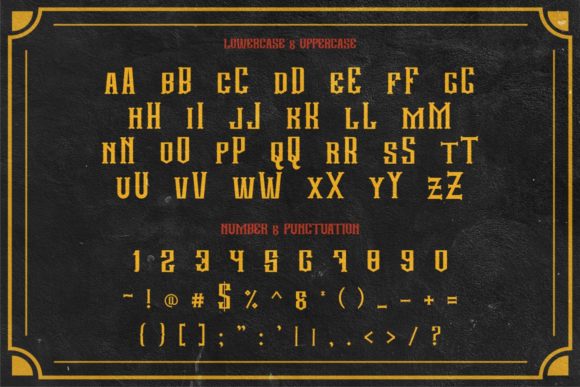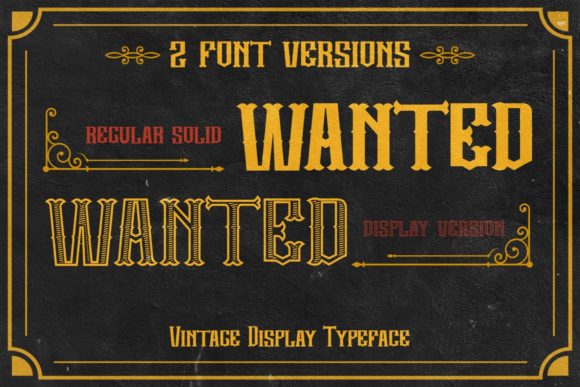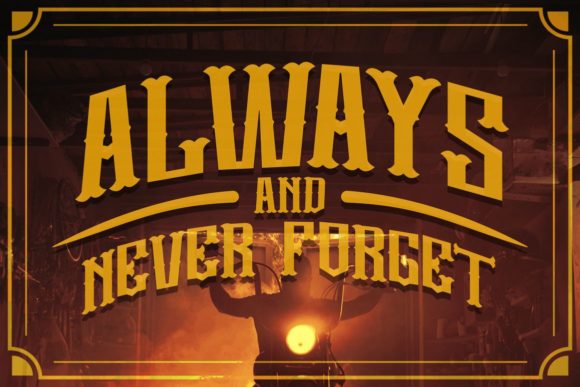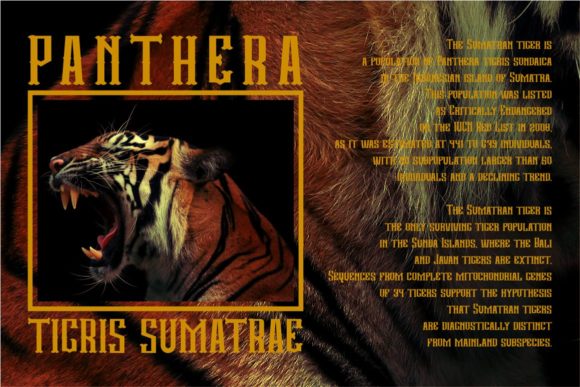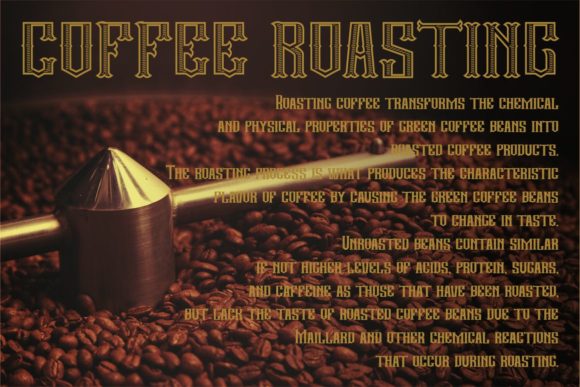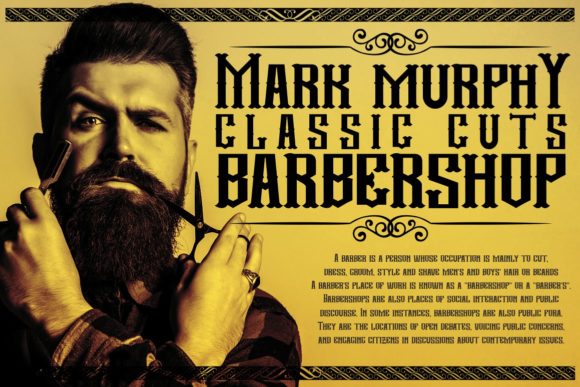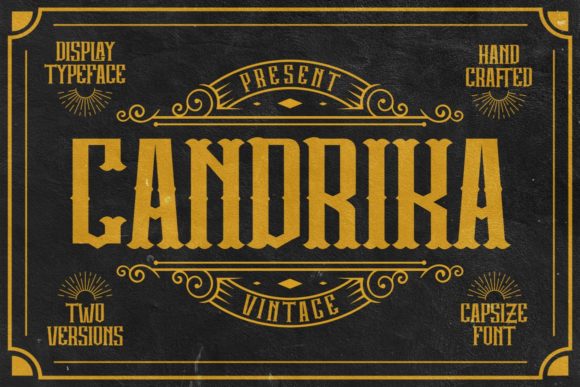
Candrika Font: Elevate Your Designs with a Cool, Bold, and Vintage Flair
Are you on the hunt for a font that adds a touch of nostalgia and sophistication to your designs? Look no further than Candrika, a stunning display font that’s perfect for creating eye-catching posters, flyers, and prints. With its bold, vintage-inspired aesthetic, Candrika is sure to elevate your designs and leave a lasting impression.
The Charm of Candrika Font
Candrika is a cool, bold, vintage-styled display font that’s designed to make a statement. Its unique blend of classic and modern elements gives it a distinctive look that’s both nostalgic and fresh. Whether you’re a designer, crafty DIY enthusiast, or simply someone who appreciates great typography, Candrika is sure to captivate you with its endless possibilities.
Key Features of Candrika Font
- Bold and Eye-Catching: Candrika’s bold design ensures that your text will stand out, making it perfect for headlines, titles, and attention-grabbing statements.
- Vintage Flair: With its classic, vintage-inspired aesthetic, Candrika adds a touch of nostalgia and sophistication to any design.
- Highly Versatile: Candrika is suitable for a wide range of design applications, from posters and flyers to prints, logos, and more.
- Easy to Read: Despite its bold design, Candrika remains highly legible, making it perfect for use in a variety of contexts.
Design Possibilities with Candrika Font
The possibilities are truly endless when it comes to using Candrika in your designs. Here are just a few ideas to get you started:
- Posters and Flyers: Use Candrika to create eye-catching posters and flyers that grab attention and leave a lasting impression.
- Branding and Logos: Add a touch of vintage sophistication to your brand with Candrika, perfect for creating unique and memorable logos.
- Print Designs: From business cards to brochures, Candrika is perfect for adding a bold, vintage flair to any print design.
- Digital Designs: Use Candrika in your digital designs, such as social media graphics, website headers, and more.
Tips for Using Candrika Font Effectively
To get the most out of Candrika, here are a few tips to keep in mind:
- Use it Sparingly: While Candrika is a stunning font, it’s best used sparingly to avoid overwhelming the senses. Use it for headlines and titles, and pair it with a simpler font for body text.
- Experiment with Colors: Candrika looks great in a variety of colors, so don’t be afraid to experiment and find the perfect hue to match your brand or design.
- Pair it with Other Fonts: Candrika pairs well with a range of other fonts, so feel free to get creative and find the perfect combination to suit your design.
In conclusion, Candrika is a cool, bold, and vintage-styled display font that’s perfect for designers, crafters, and anyone looking to add a touch of sophistication to their designs. With its endless possibilities and versatility, Candrika is sure to become a go-to font in your design arsenal. So why wait? Download Candrika today and explore its many uses for yourself!